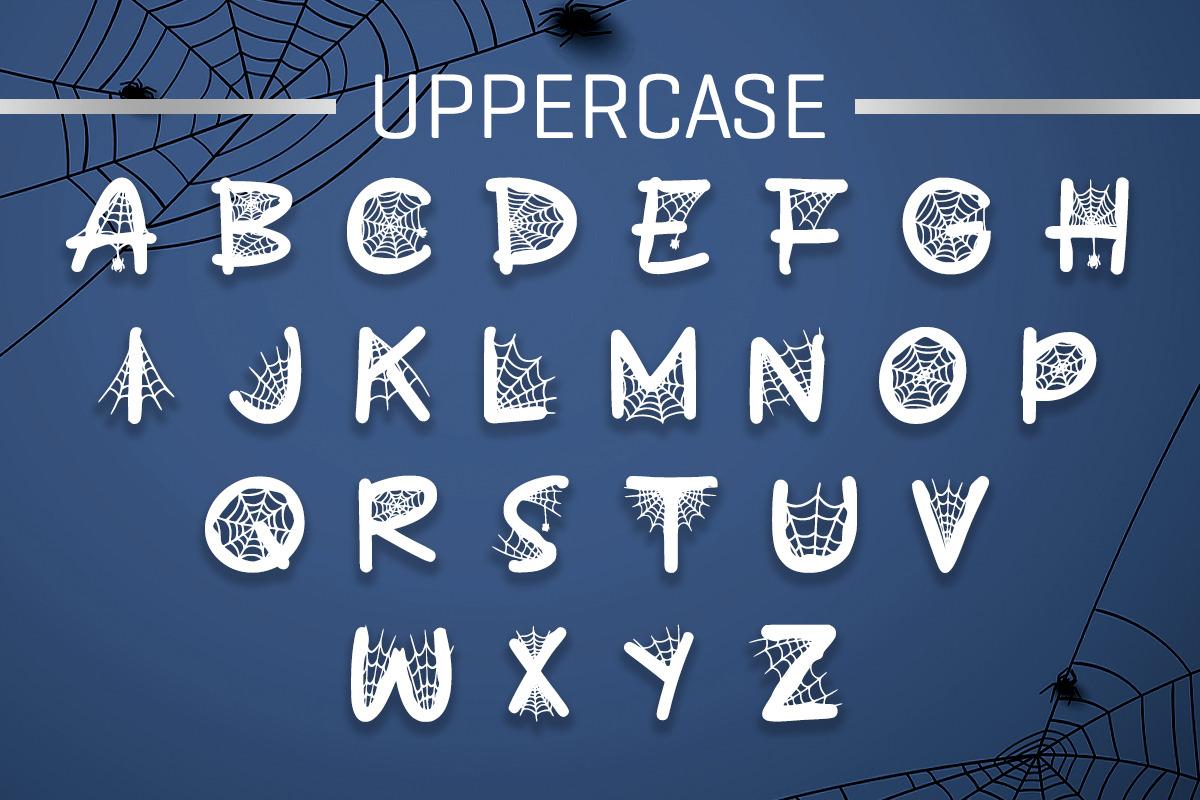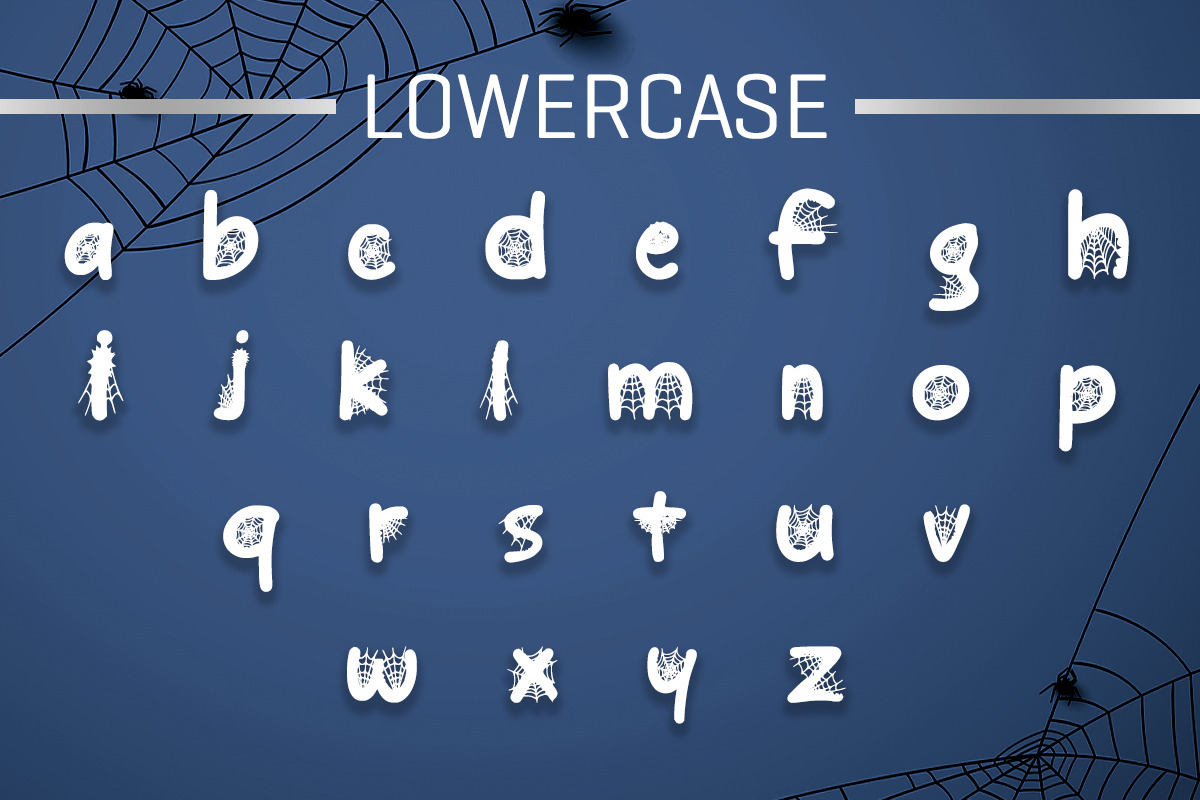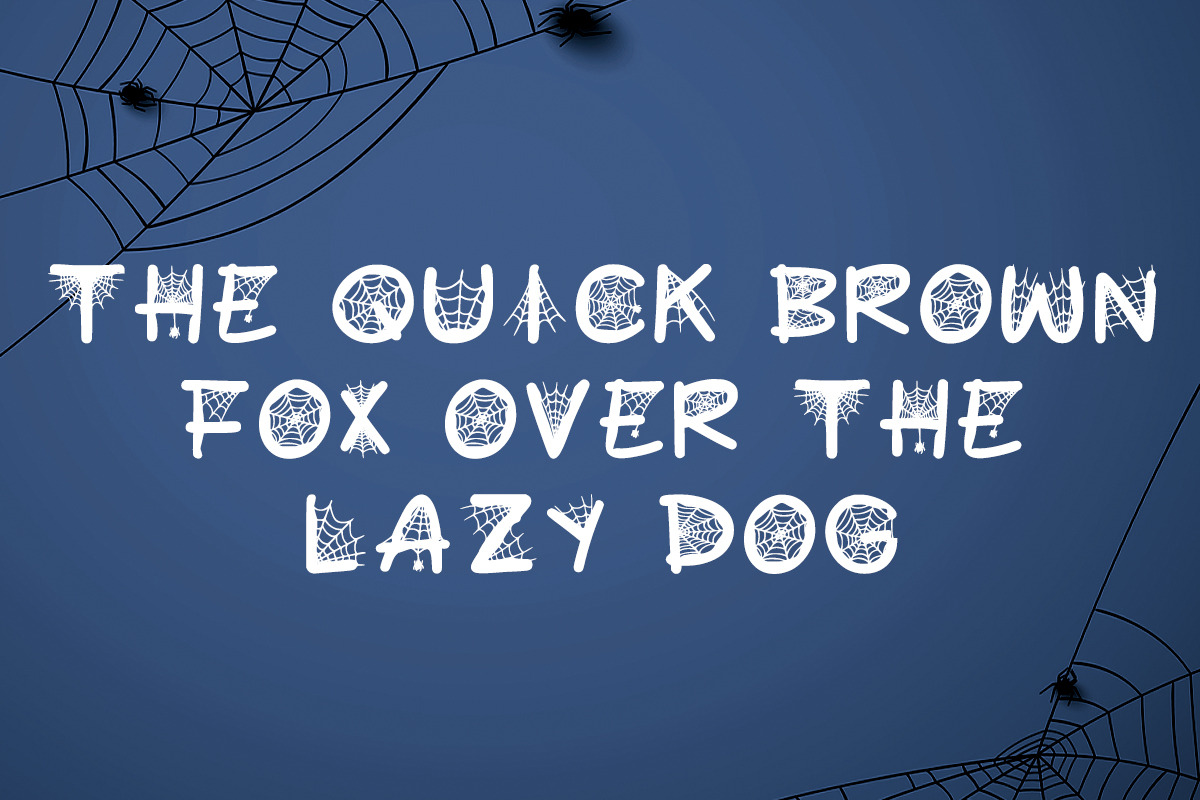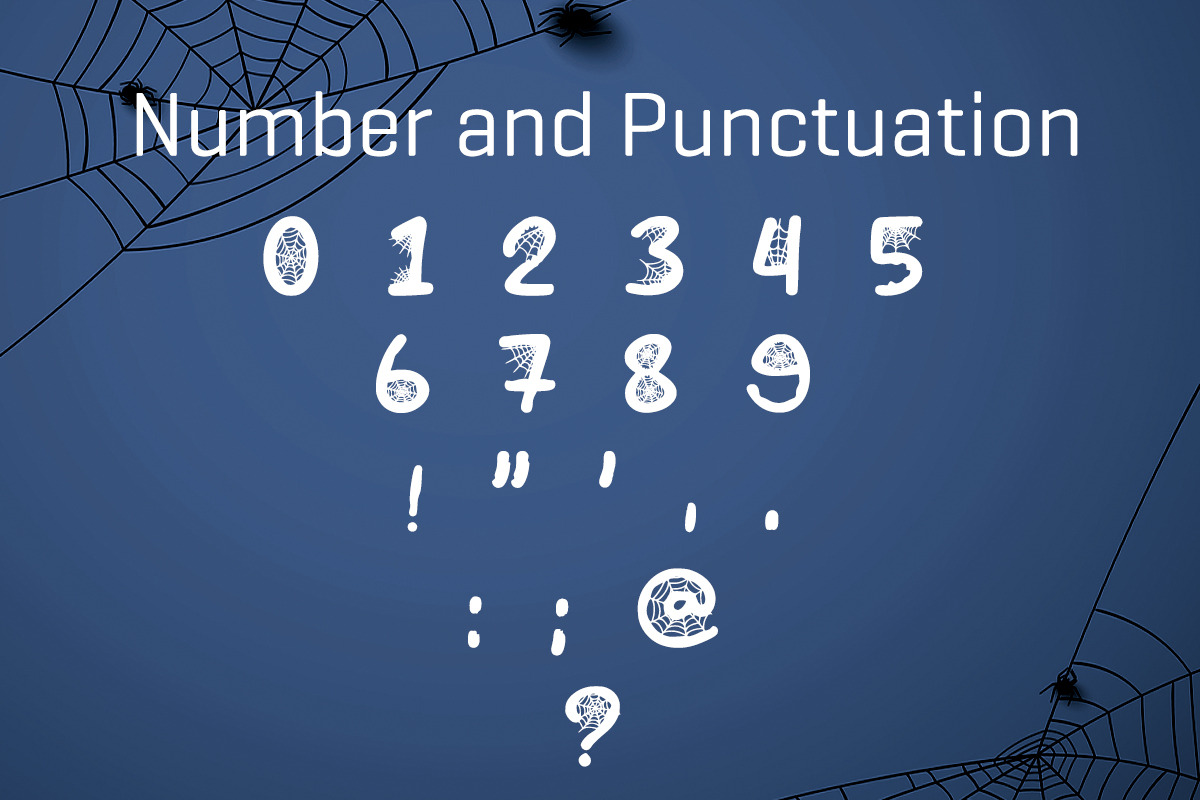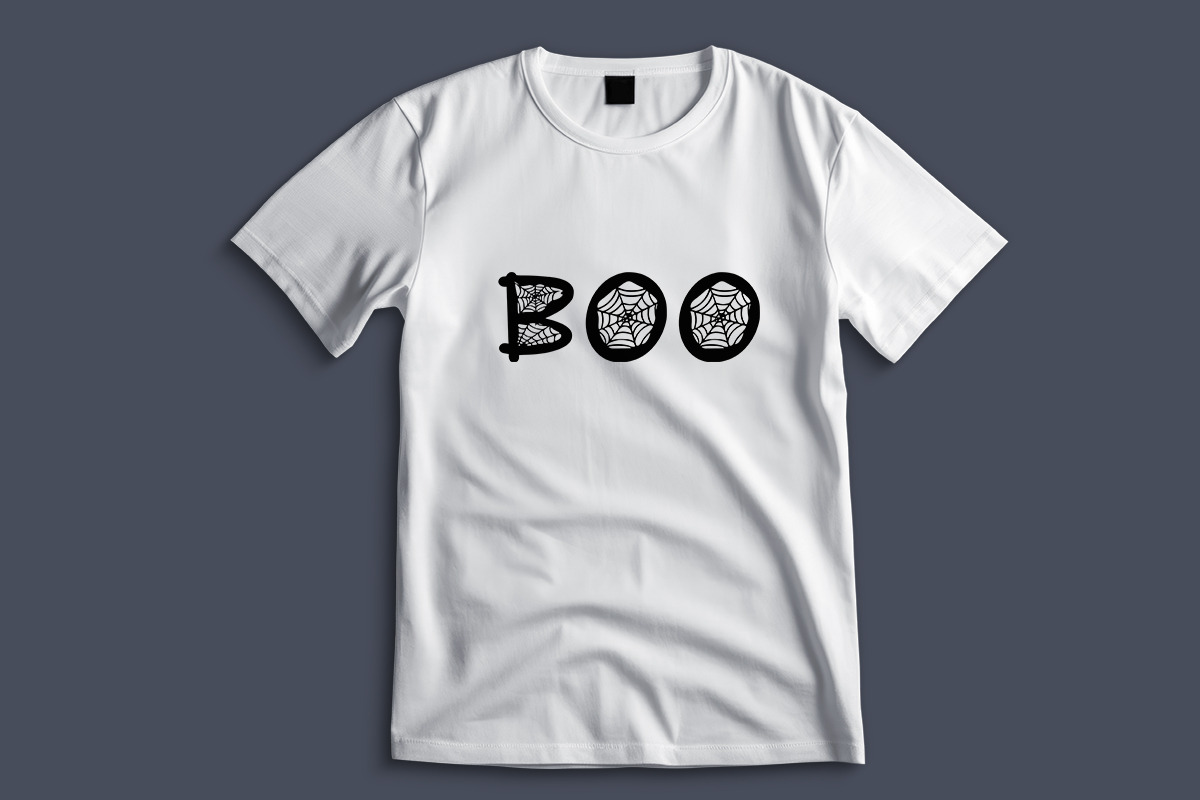
Black Spider Web
Introducing Black Spider Web: A Spooky and Intriguing Font
Are you looking for a font that adds a touch of mystery and intrigue to your designs? Look no further than Black Spider Web! This unique font features intricate spider web patterns woven into each letter, creating a captivating and eerie effect.
Perfect for: Horror-inspired designs Gothic-style artwork Web-themed graphics Mysterious and spooky branding